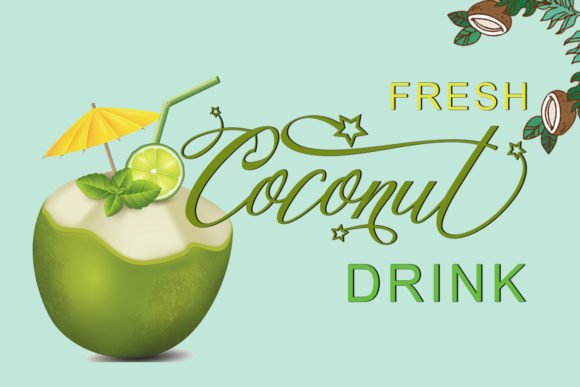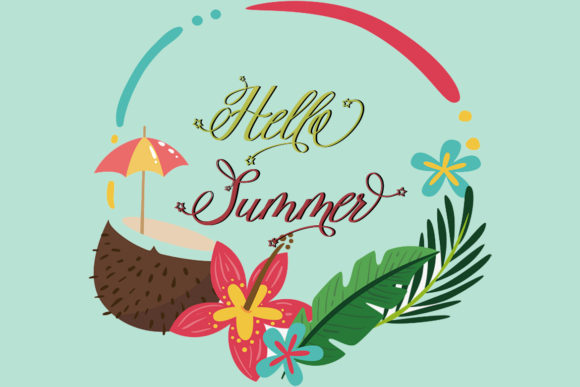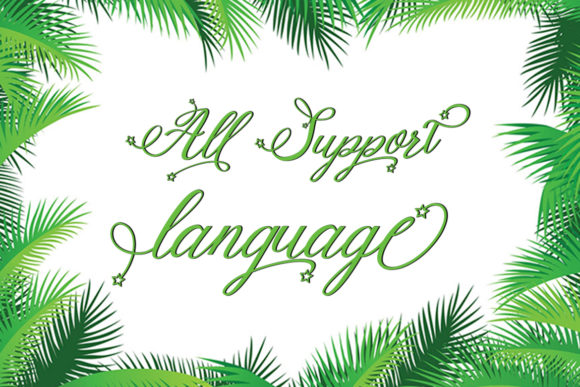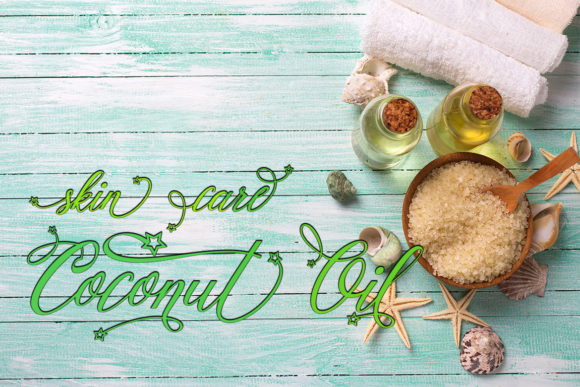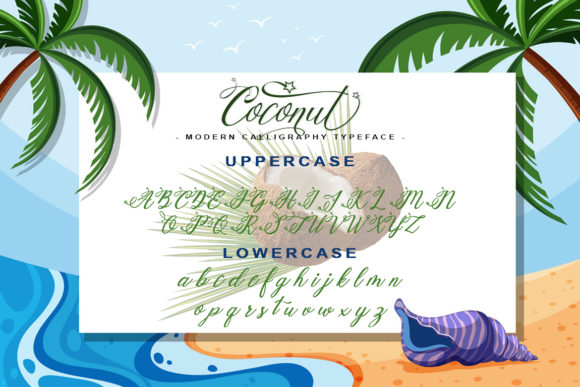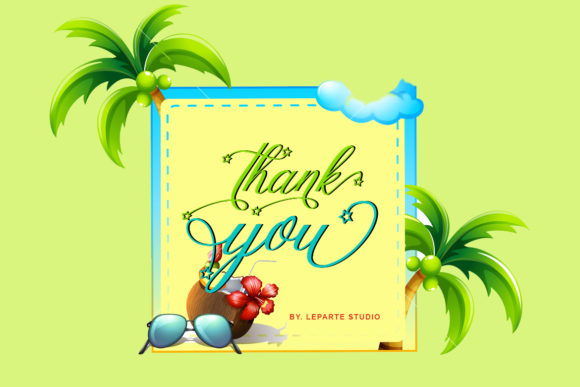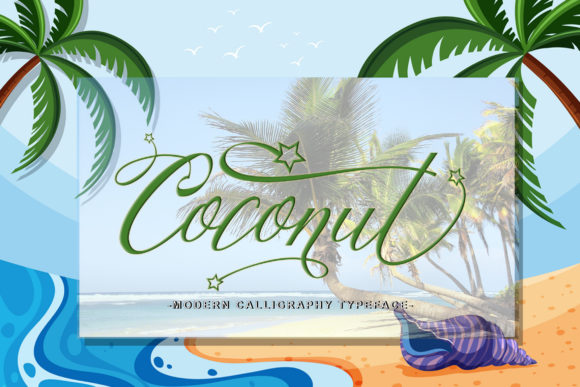
Coconut Font: Elevate Your Designs with a Touch of Modern Calligraphy
In the world of typography, few fonts manage to capture the essence of modern calligraphy as elegantly as the Coconut Font. This stunning typeface is a masterpiece of precision and artistry, making it a must-have for designers and crafters looking to add a touch of sophistication to their projects. In this article, we’ll dive into the details of what makes Coconut Font so special and why it should be your go-to choice for your next design endeavor.
The Making of Coconut Font
The Coconut Font is an amazing modern calligraphy font that was crafted with meticulous attention to detail. Every single curve and path was built with a horizontal and vertical approach, ensuring a level of precision that sets it apart from other fonts in its category. This careful construction results in a fluid, elegant appearance that is perfect for a wide range of design applications.
Key Features of Coconut Font
- Modern Calligraphy Style: Coconut Font embodies the beauty of modern calligraphy, with flowing lines and elegant curves that add a touch of class to any design.
- Precision Crafted: With its horizontal and vertical path construction, this font boasts a level of precision that ensures consistency and clarity in every letter and word.
- Versatility: Whether you’re working on a wedding invitation, a branding project, or a digital platform, Coconut Font adapts seamlessly to various design needs.
- Easy to Read: Despite its elegant and cursive nature, Coconut Font remains highly legible, making it suitable for both headings and body text.
Why Designers and Crafters Love Coconut Font
Coconut Font has quickly become a favorite among designers and crafters for several reasons. Its modern calligraphy style offers a fresh alternative to traditional fonts, allowing creators to infuse their work with a contemporary feel. Additionally, the font’s precision ensures that it looks great in both print and digital formats, providing flexibility for a wide range of projects.
Using Coconut Font in Your Projects
Incorporating Coconut Font into your designs is straightforward. Here are a few tips to make the most of this beautiful font:
- Pair with Neutrals: Coconut Font pairs beautifully with neutral backgrounds or simple textures, allowing its elegance to take center stage.
- Experiment with Colors: While the font itself is stunning in black or dark colors, don’t be afraid to experiment with different hues to match your brand or project’s aesthetic.
- Mix and Match: Combine Coconut Font with other fonts for a unique look. Its modern calligraphy style works well with sans-serifs for a contrasting effect.
Coconut Font is more than just a typeface; it’s a design statement. With its modern calligraphy style, precision-crafted curves, and versatile application, it’s an invaluable asset for designers and crafters aiming to elevate their work. Whether you’re creating wedding invitations, branding materials, or digital content, Coconut Font offers the perfect blend of elegance and readability. Add a touch of sophistication to your designs with Coconut Font and discover the difference it can make.